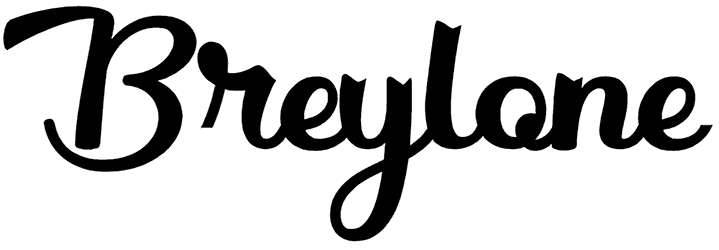
Breylone Font
Breylone is a script font that evokes the same idea and feelings you require in your editorial projects, including logos, wood engravings, merchandise, or social media posts. Since the edge of its characters is stretched…
Breylone is a script font that evokes the same idea and feelings you require in your editorial projects, including logos, wood engravings, merchandise, or social media posts. Since the edge of its characters is stretched and elongated, it can bring a sense of drama, dynamism, and sincerity to your work.